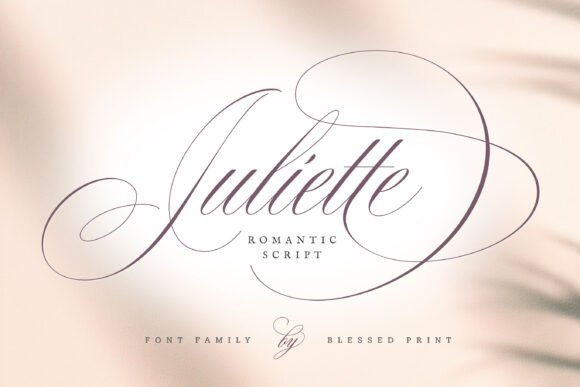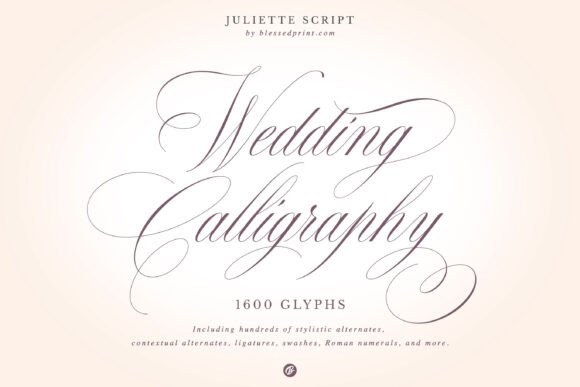
Juliette Font: Elegant Calligraphy Script for Wedding & Logo Design
About the Juliette Font
We are excited to introduce Juliette Font, a must-have typeface for any serious designer. **Juliette – Handwritten Script Font**
Add a touch of elegance to your designs with this flowing script font, perfect for wedding invitations, branding, photography, logo, label and anything that needs a touch of whimsy.
Juliette’s elegant, flowing forms make it ideal for branding projects requiring a touch of sophistication, particularly for logos, invitations, and short-form marketing materials. It works exceptionally well in headlines and short text blocks on packaging or posters where its handcrafted charm can shine. However, its cursive nature makes it unsuitable for large blocks of body text or UI elements where readability is paramount.
For optimal visual balance, pair Juliette with a clean sans-serif like Montserrat for a modern contrast, or a classic serif such as Garamond for a more traditional feel. A geometric sans-serif, such as Futura, could also create a striking juxtaposition, highlighting Juliette’s organic curves.
Its overall personality is sophisticated yet approachable, conveying a sense of both timeless elegance and gentle charm. This makes it particularly well-suited to brands in the fashion, beauty, or wedding industries.